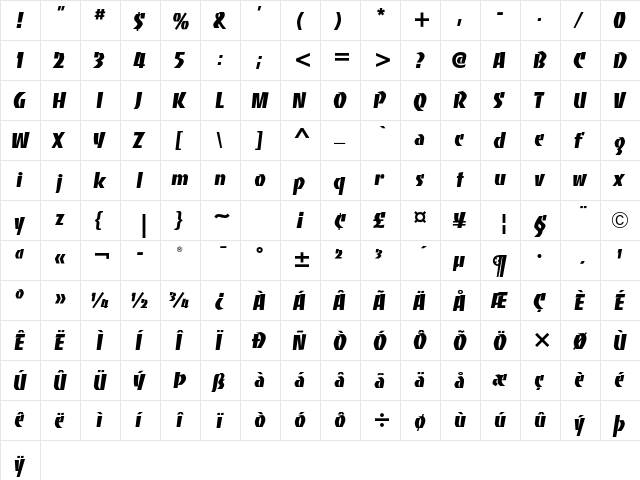
Banco ITC Std Heavy
| Designer | Phill Grimshaw |
Design Context for Banco ITC Std Typeface
Banco ITC Std is a composed and adaptable typeface that performs quietly and consistently across a wide range of design contexts.